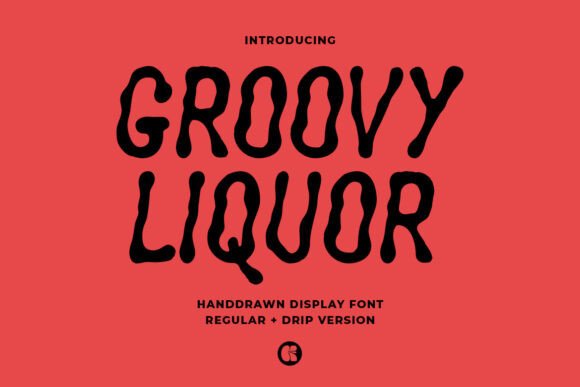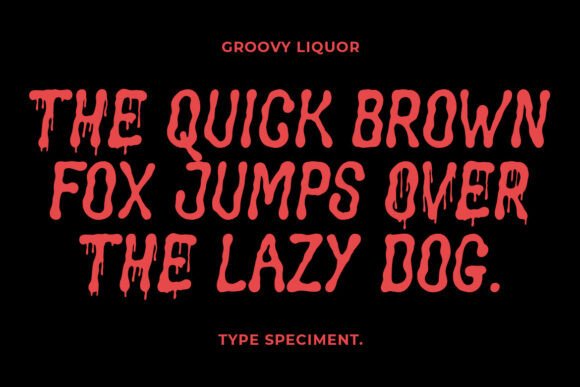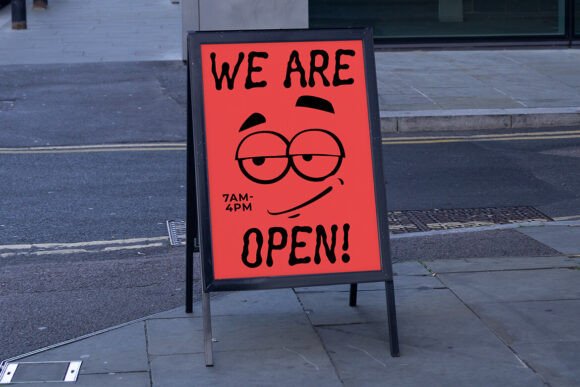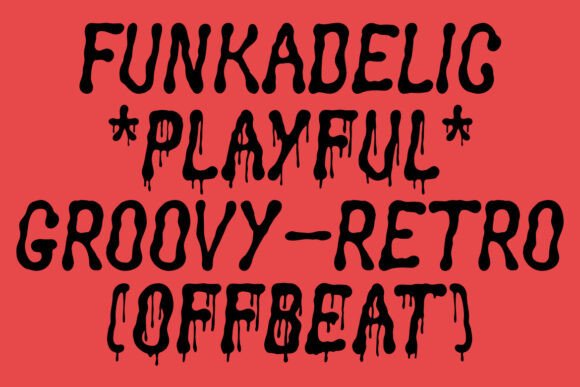
Groovy Liquor Font: A Unique Drip Display Font for Playful Designs
About the Groovy Liquor Font
Discover the charm of Groovy Liquor Font. This font is a perfect blend of modern aesthetics and classic appeal. Groovy Liquor is a unique hand-drawn display font that captures the essence of flowing waves with its gentle curves and fluid lines.
This font comes in two types: regular and drip, offering versatility in creating visually appealing designs.
Whether you are looking to add a touch of whimsy or a hint of creativity to your projects, Groovy Liquor is the perfect choice for a playful and artistic aesthetic.
Groovy Liquor excels in headline applications, short taglines, and branding elements where a playful, slightly retro feel is desired. Its fluid forms work particularly well for beverage labels, posters promoting events with a vintage vibe, or in packaging design for products emphasizing fun and carefree aesthetics. Avoid using it for body text or lengthy paragraphs; its highly decorative nature hinders readability in extended use.
This font’s personality is undeniably bold and playful, with a hint of 70s-inspired retro charm. To balance its organic curves, pairing it with a clean sans-serif like Futura or a geometric sans-serif like Bebas Neue provides a strong contrast and enhances readability in supporting text. Alternatively, a classic serif like Garamond could create a sophisticated juxtaposition, offering a sense of timeless elegance against Groovy Liquor’s dynamic energy.
For a more whimsical feel, consider pairing it with a script font that shares a similar playful energy, but be mindful of readability.
Groovy Liquor Font Usage Examples
Groovy Liquor Font Example